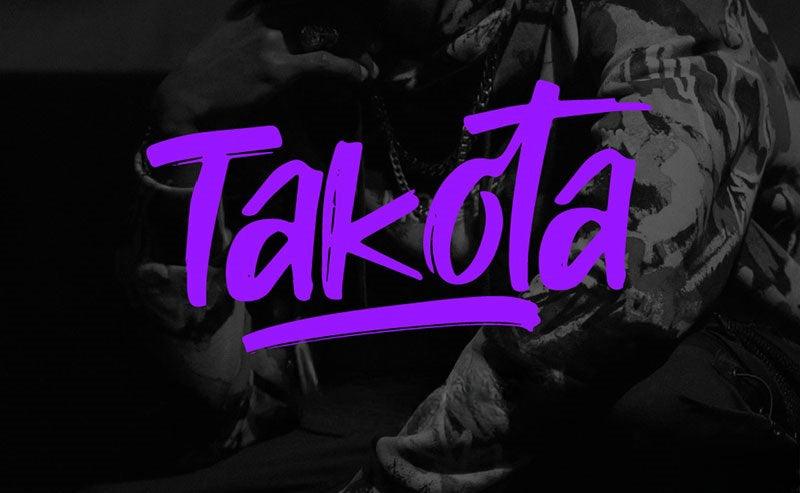
🎨 Free Takota Artistic Brush Font – Dynamic Strokes • Commercial Use 🔥 | Stylish & Dynamic Typography
- Font Name: Takota Artistic English Brush Font
- Font Style: Artistic / Brush Stroke / Dynamic / Trendy & Creative
- Application Scenarios: Street art designs, music album covers, trendy brand logos, social media graphics, urban fashion promotions, creative posters
- Vibrant Visual Impact: Features bold, expressive brush strokes in a striking style, adding energy and personality to any design.
- Unique Handwritten Charm: Mimics authentic hand-painted effects, infusing designs with an artistic, raw flair that stands out.